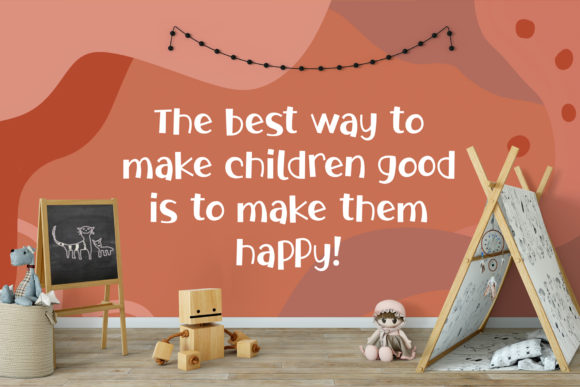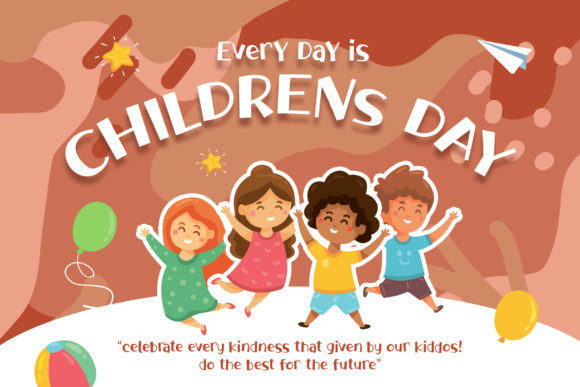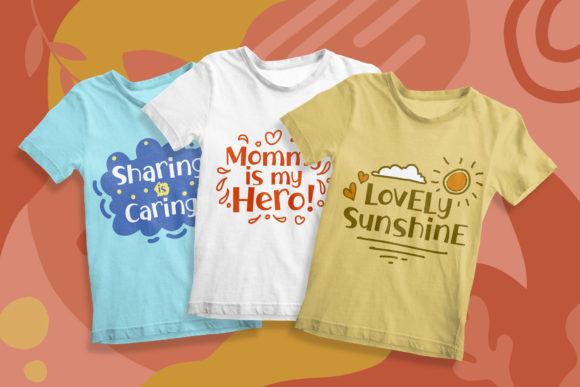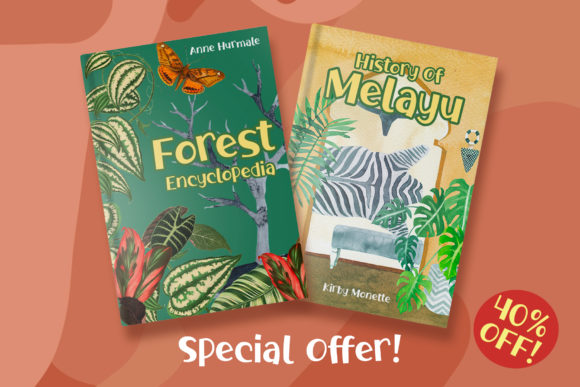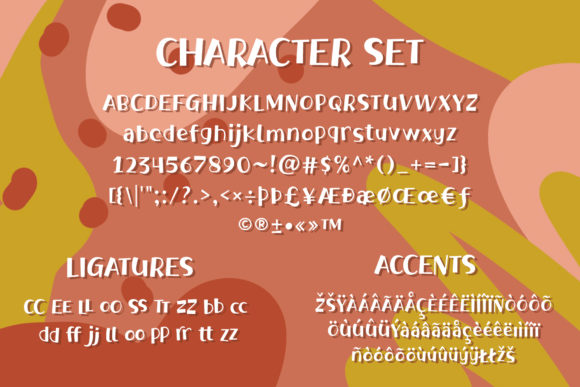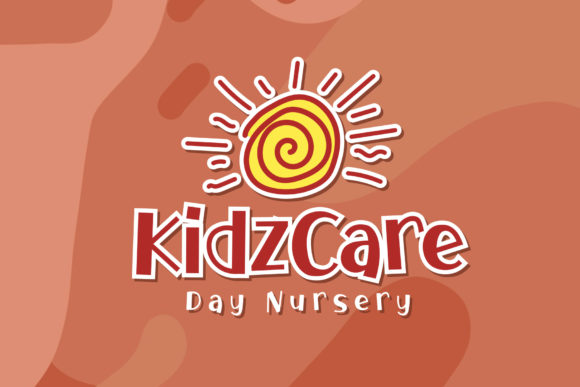
The Joy of Bragley Font: Adding Playfulness to Your Designs
I’ll never forget the time I was working on a project for a kids’ party invitation. I had all the elements in place – the colors, the graphics, the overall vibe – but something was missing. It wasn’t until I stumbled upon the Bragley font that the entire design came together. The bouncy characters and joyful playfulness of Bragley added a spark to the invitation that made it impossible to ignore. In this article, I’ll share with you why I’m obsessed with Bragley and how you can use it to brighten up your designs.
An Honest Review of Bragley Font
What I Love About Bragley ✨
- ✅ Playful and bouncy characters that add a touch of whimsy to any design
- ✅ Perfect for kids and school projects, but also versatile enough for other creative endeavors
- ✅ Unique and eye-catching, making it a great way to stand out from the crowd
- ⚠️ May not be suitable for formal or professional designs, as it can come across as too playful
- ⚠️ Limited use of uppercase letters, which can make it less versatile for certain projects
The Backstory of Bragley Font
Bragley was designed with one goal in mind: to create a font that would bring joy and playfulness to designs. The designer, inspired by the bouncy and carefree nature of childhood, set out to create a font that would capture that essence. The result is a font that is both fun and functional, perfect for adding a touch of whimsy to any design.
Q: Can I use Bragley for kids’ projects?
A: Yes, Bragley is perfect for kids’ projects! Its playful and bouncy nature makes it a great choice for designs aimed at children.